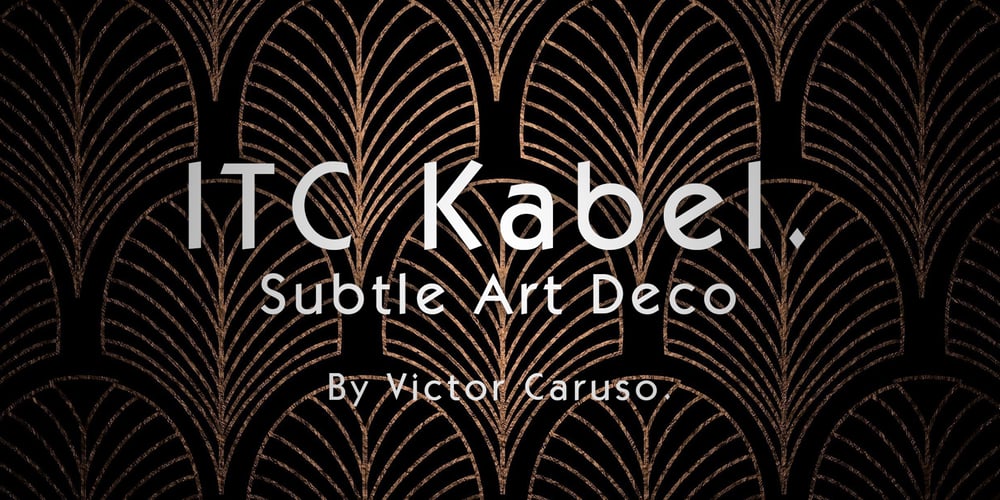
Kabel Font Family was designed by Rudolf Koch and published by Linotype. Kabel contains 4 styles and family package options. Rudolf Koch’s personal form of the geometric sanserif started at the Bauhaus in 1926; this typeface was designed for Klingspor in the following year.